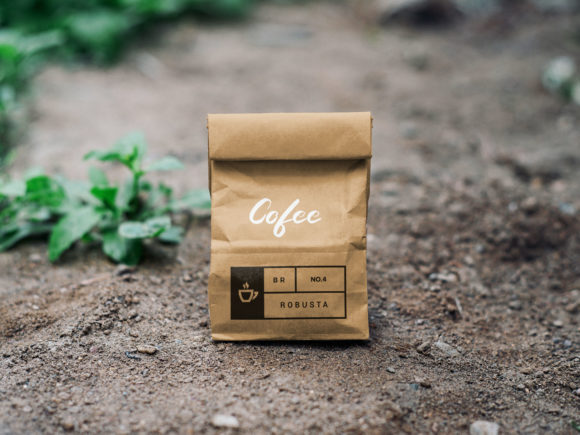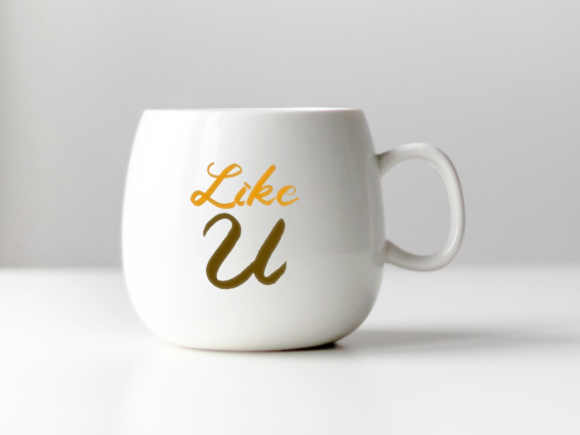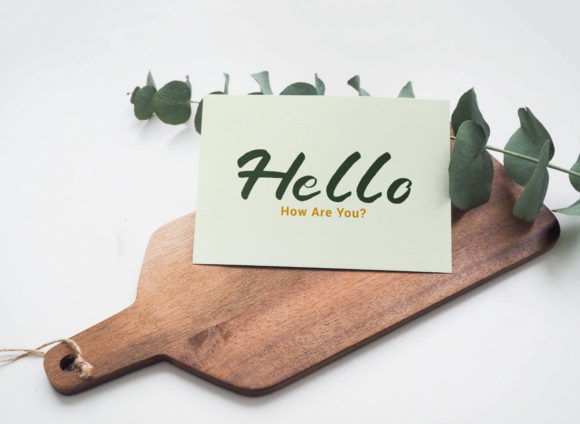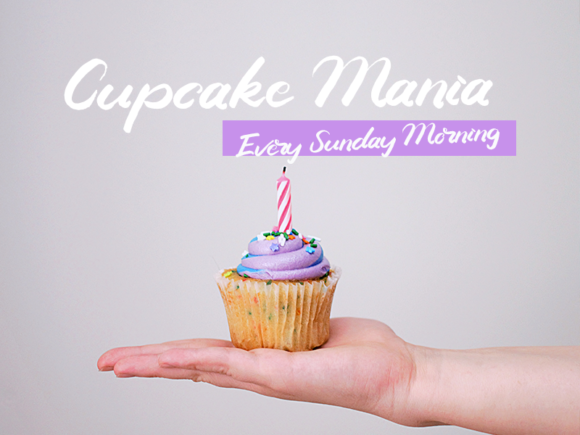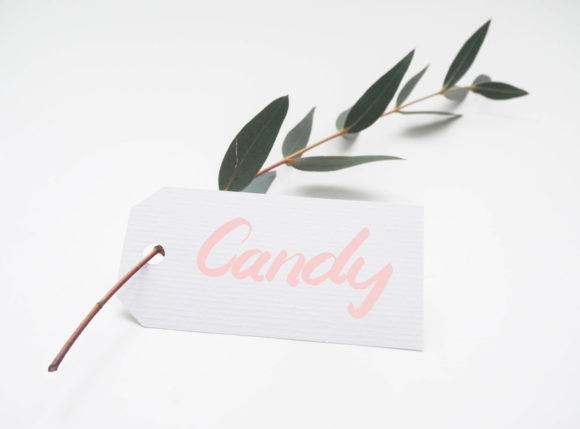
The Sweetest Touch: Discovering Candy Font
Have you ever been brainstorming a design project and suddenly, out of nowhere, a burst of creativity strikes? For many designers, that moment is pure magic. The ideas start flowing, and the excitement builds up. It’s in these moments that we need the right tools to help us bring our visions to life. That’s where fonts like Candy Font come in – a simple yet charming handwritten font with a bold feel.
Crafted with love and care, Candy Font is perfect for adding a touch of personality to your designs. Whether you’re working on a logo, a brochure, or a social media campaign, this font is sure to make your work stand out. Its unique charm is not only visually appealing but also valuable for designers who want to add an extra layer of emotion to their designs.
Candy Font Key Features
- Font Family: Candy Font is a sans-serif script font.
- Unique Characteristics: Features a playful, cursive design with rounded edges and swashes, ideal for adding a touch of whimsy to text.
Candy Font Review
I recently had the chance to work with the Candy Font, and I must say, it was a wild ride. Here’s my honest take on this quirky font.
- The Candy Font is super versatile and can be used for a variety of projects, from kids’ apps to candy packaging.
- It’s incredibly easy to read, even at small font sizes, which is a must for digital design.
- The font is highly customizable, with a range of color options and effects that can add an extra layer of fun to your design.
- The Candy Font can feel a bit too playful for certain projects, and may not be suitable for more serious or professional designs.
- The font’s unique design can be distracting in certain contexts, and may require extra effort to balance with other design elements.
Overall, the Candy Font is a fun and playful addition to any design arsenal. While it may have its limitations, it’s perfect for projects that require a touch of whimsy and fun. Just be sure to use it in contexts where its playful vibe won’t clash with the tone of your design.
Tips for Getting the Most Out of Candy Font
Use Candy Font to add a playful and whimsical touch to your designs. Pair it with bold colors and fun graphics for a visually appealing effect. Experiment with different font sizes and styles to create a unique look.
Candy Font is perfect for:
- Food and dessert branding
- Playful social media posts and ads
- Whimsical greeting cards and gift tags
Alternatives to Candy Font
Great Vibes is a beautiful, elegant script font perfect for adding a touch of sophistication to your designs. It’s ideal for use in logos, invitations, and other creative projects where a handwritten feel is desired. Compared to Candy Font, Great Vibes has a more refined and polished look, making it suitable for a wider range of applications.
Carolyna Pro is a modern, playful script font that’s great for adding a pop of personality to your designs. It’s perfect for use in social media graphics, advertising, and other projects where a fun and youthful vibe is desired. Compared to Candy Font, Carolyna Pro has a more dynamic and energetic feel, making it ideal for projects that require a lot of visual interest.
Alex Brush is a elegant, handwritten font that’s perfect for adding a touch of warmth and personality to your designs. It’s ideal for use in logos, branding, and other projects where a high-end feel is desired. Compared to Candy Font, Alex Brush has a more refined and sophisticated look, making it suitable for a wider range of applications.
Rock Salt
Rock Salt is a distressed, handwritten font that’s perfect for adding a touch of ruggedness and edge to your designs. It’s ideal for use in branding, advertising, and other projects where a vintage or industrial feel is desired. Compared to Candy Font, Rock Salt has a more rough-around-the-edges look, making it suitable for projects that require a lot of grit and texture.